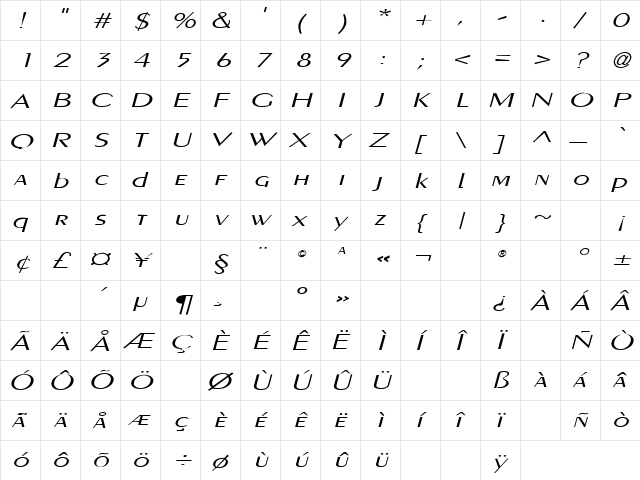
Custard Pie 12 Italic Font Preview
Custard Pie 12 Italic
Design Context for Custard Pie 12 Typeface
Custard Pie 12 is a composed and adaptable typeface that performs quietly and consistently across a wide range of design contexts. The slanted form adds forward momentum and visual energy.
Pro Tip: Use Custard Pie 12 for emphasis, pull quotes, and subheadings where its slanted energy can add rhythm to the layout.